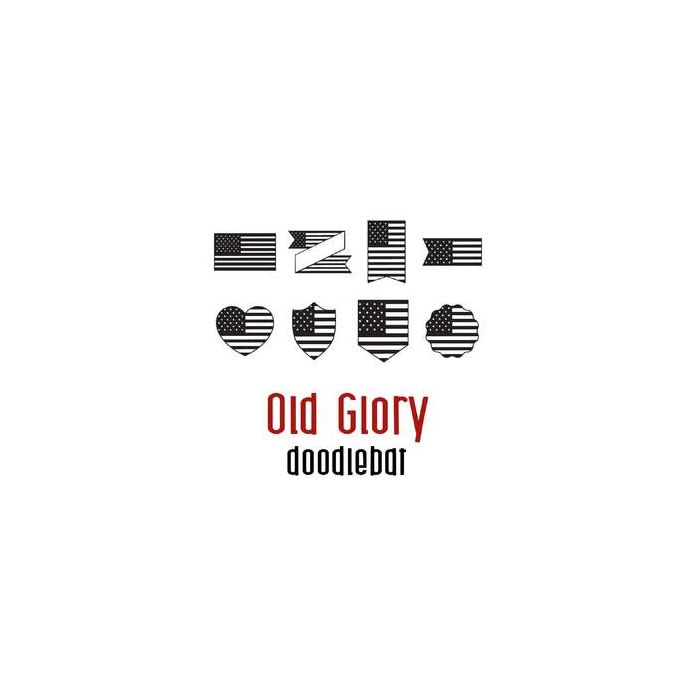
This fun doodlebat font features 26 different patriotic flag themed iconic shapes. Perfect for cards, gifts, decor, crafts, scrap book pages, planner stickers and more!